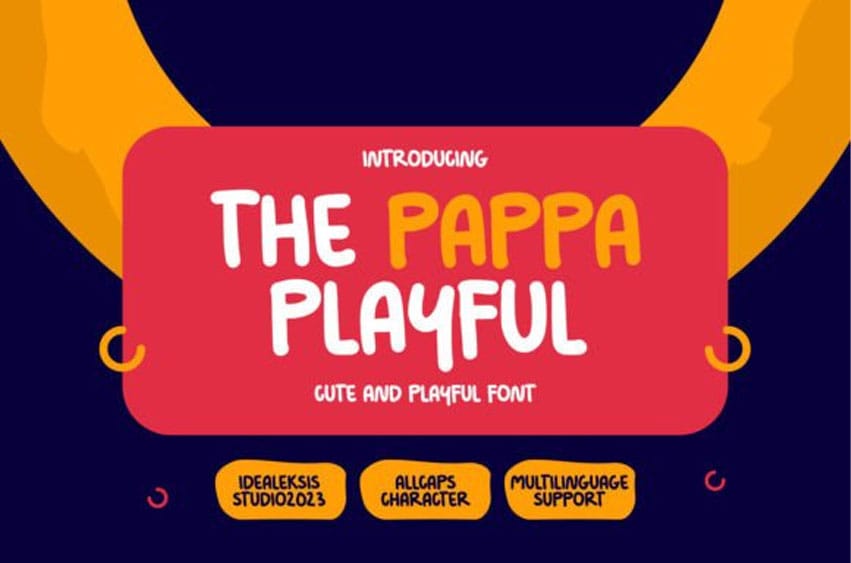
The Pappa Playful Font is a fun and casual handwritten font. Incredibly versatile, this font is suitable for a wide pool of design ideas.
Very suitable for children’s design needs that are fun and happy, original handwritten designs, really depict cheerful joy.